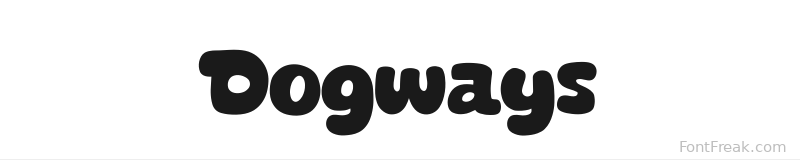
Dogways
Dogways by Syaf Rizal is a unique display font that captures attention with its playful, rounded letterforms. This font falls under the category of decorative typefaces, which are particularly effective in creating a fun and engaging atmosphere. The visual characteristics of Dogways are marked by thick, bold strokes that provide a strong presence while maintaining a friendly and approachable aesthetic. The even spacing between characters ensures clarity, making it an excellent choice for various applications. Its whimsical design is accented by subtle curves and soft edges, giving it a lively personality that resonates with audiences.
This font is particularly well-suited for use cases such as children’s book covers, vibrant restaurant menus, and eye-catching promotional materials for pet-related businesses. Moreover, its cheerful appearance makes it an excellent fit for birthday party invitations or event flyers aimed at a family-friendly audience. Graphic designers and small business owners will find Dogways to be a valuable addition to their font libraries, especially for projects that call for a lighthearted touch.
The target audience for this font includes content creators, marketers, and anyone looking to inject a sense of joy into their designs. Dogways font free download allows users to easily incorporate this delightful typeface into their projects without any cost barriers, making it accessible to a wide range of creators.
In a crowded field of decorative typefaces, Dogways stands out for its unique blend of playfulness and versatility. Its bold design and friendly appeal make it an excellent choice for capturing attention while conveying a sense of warmth and enjoyment. Whether for professional use or personal projects, Dogways is sure to leave a lasting impression.